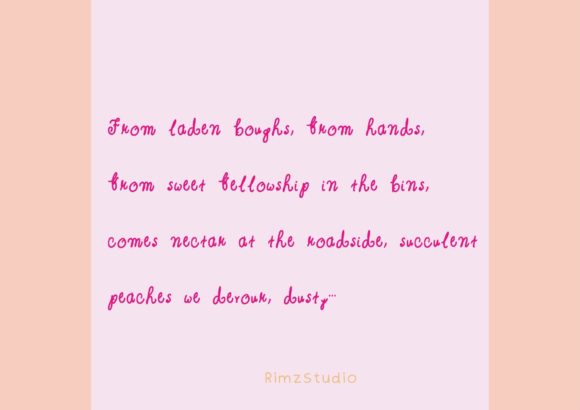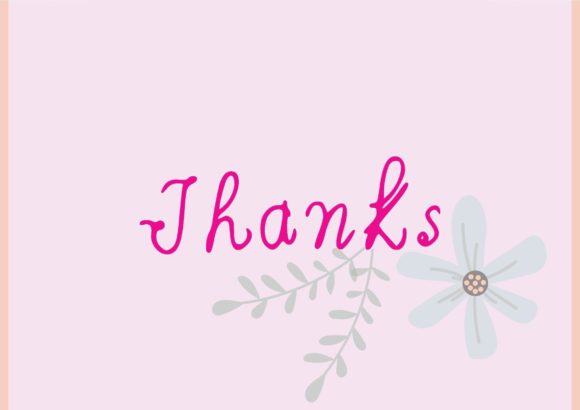
Miss Lazy Font
About Miss Lazy Font
Miss Lazy stands out as an exquisite handwritten font that effortlessly encapsulates delicacy, sweetness, and loveliness. This versatile typeface serves as a delightful choice for an array of creative projects, spanning from the excitement of back-to-school endeavors to the festive celebrations of Christmas, the vibrant transitions between seasons, and the heartfelt occasions such as Easter, Valentine’s Day, Halloween, Thanksgiving, St. Patrick’s Day, Earth Day, and the joyous welcoming of the New Year.
The whimsical and playful design inherent in Miss Lazy makes it an invaluable asset for creators seeking to infuse warmth and character into their designs. Its adaptability across diverse themes and celebrations allows it to seamlessly integrate into materials related to holidays, changing seasons, and various special occasions. The font’s unique charm is poised to elevate the visual appeal of any project it graces, creating an atmosphere of enchantment and creativity.
What sets Miss Lazy apart is not just its aesthetic appeal, but also its handwritten feel, which imparts a personal and authentic touch to designs. This characteristic makes the font particularly well-suited for a wide range of creative endeavors, enabling creators to establish a genuine connection with their audience. Whether employed in crafting greeting cards, invitations, banners, or social media graphics, Miss Lazy consistently adds a delightful and distinctive flair.
Embrace the font’s versatility as you embark on your design journey, exploring the myriad possibilities it offers. From adorning holiday-themed materials with a touch of whimsy to creating visually engaging back-to-school projects, Miss Lazy proves to be an invaluable tool for expressing creativity. Its endearing qualities make it an excellent choice for designers seeking to infuse projects with a personal touch, ensuring that each creation becomes a unique and memorable masterpiece. Allow Miss Lazy to be your companion in the world of design, where its charm and adaptability shine brightly, leaving an indelible mark on every project it graces.